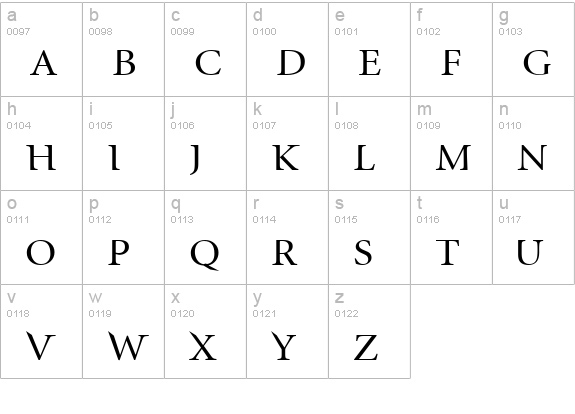
InfraRed font is a modern and stylish typeface that exudes a sense of sophistication and elegance. Its sleek and streamlined design is perfect for adding a touch of professionalism to any project. With its clean lines and contemporary aesthetic, InfraRed font is versatile and suitable for a wide range of applications, from branding and advertising to web design and editorial layouts. What sets InfraRed font apart is not just its stunning visual appeal, but also the fact that it is available for free. Yes, you read that right - this incredible font can be freely downloaded at FontsMarket.com. Whether you're a professional designer or a hobbyist looking to enhance your creations, InfraRed font is a valuable asset that won't cost you a dime. With its extensive character set, InfraRed font offers support for multiple languages, making it an inclusive choice for global projects. The precise letterforms and well-balanced spacing ensure excellent readability, even at smaller sizes, making it suitable for both print and digital media. InfraRed font's versatility shines through in its wide range of weights and styles, including regular, bold, italic, and more. This allows you to create dynamic and visually engaging designs that capture attention and communicate your message effectively. So why wait? Visit FontsMarket.com today and unleash the power of InfraRed font. Download this exceptional typeface for free and elevate your design projects to new heights of sophistication and professionalism.